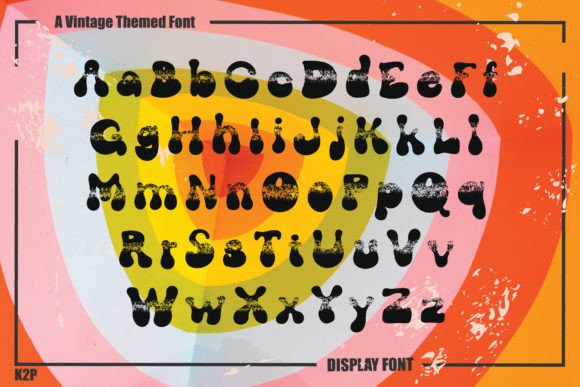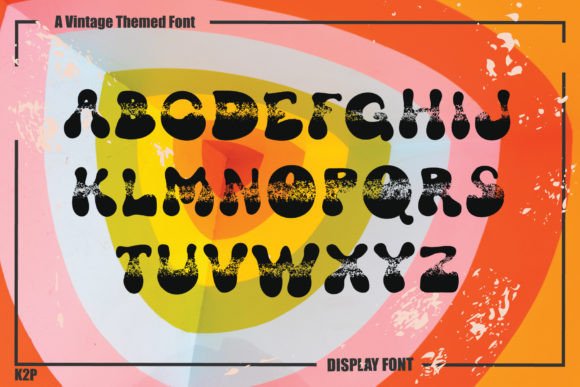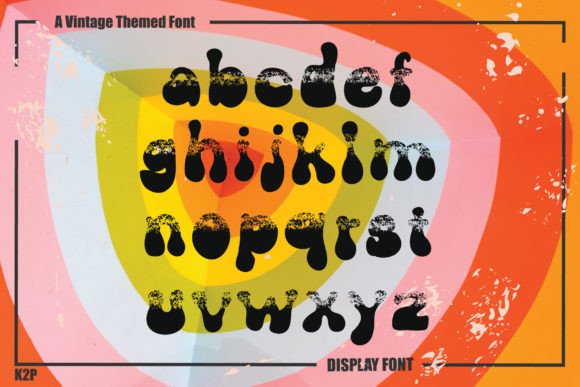
Introduction to Groovy Galaxy Font
As a designer, there’s nothing quite like the thrill of discovering a new font that sparks creativity and inspires your next project. For many of us, it’s the moment when everything clicks, and our ideas start flowing like a river. That’s exactly what happened when I stumbled upon the Groovy Galaxy Font – a fun, retro, and whimsical display font that’s out of this world!
With its incredibly distinct and timeless style, the Groovy Galaxy Font is the perfect design resource for any creative project. Whether you’re working on a futuristic theme, a retro-inspired campaign, or simply want to add a touch of whimsy to your branding, this font is sure to elevate your designs to the next level. Plus, with its transparent background and high-quality design, you can be sure that your work will shine like a star in the galaxy.
Key Features of Groovy Galaxy Font
- Unique, high-quality design that’s perfect for creative projects, with a transparent background for easy customization.
- Resolution-independent design, ensuring crisp and clear display at any size, from 8pt to 1000pt.
- Designed to add a touch of fun and playfulness to your designs, with a distinctive, futuristic feel.
- Comes with a comprehensive character set, including uppercase and lowercase letters, numbers, and punctuation marks.
Honest Review: Groovy Galaxy Font
I recently stumbled upon the Groovy Galaxy Font while searching for a unique design resource for a creative project. I was impressed by its high quality and decided to give it a try.
- ✨ The font has a transparent background, making it easy to use in various design contexts.
- ✨ The font’s design is truly groovy, with a fun and playful vibe that’s perfect for creative projects.
- ⚠️ Some users may find the font’s design too bold or overpowering, so it’s best to use it in moderation.
Overall, I’m really impressed with the Groovy Galaxy Font. It’s a high-quality design resource that’s perfect for creative projects. While it may have a few limitations, the benefits far outweigh the drawbacks. If you’re looking for a fun and unique font, I highly recommend giving the Groovy Galaxy Font a try.
The Groovy Galaxy Font is perfect for creative projects that require a touch of whimsy and personality. Use it in logo designs, social media graphics, and other visual content to add a unique, extraterrestrial flair.